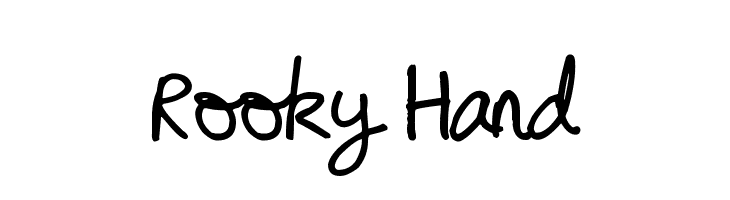
A playful, handwritten font with fluid strokes and a casual feel.
A bold, rounded font with a playful and modern aesthetic.
A bold, rounded font with a playful and chunky style.
A modern sans-serif font with clean lines and a professional appearance.
A bold, distressed font with a grunge, spray-painted effect.
A bold, decorative font with a unique diagonal striped pattern.
A bold, gothic-style font with sharp, angular edges and a medieval feel.
A bold, hand-drawn font with a rough, distressed texture.
A collection of retro-futuristic logos and emblems with bold, geometric designs.
A bold, outlined font with a modern geometric style.